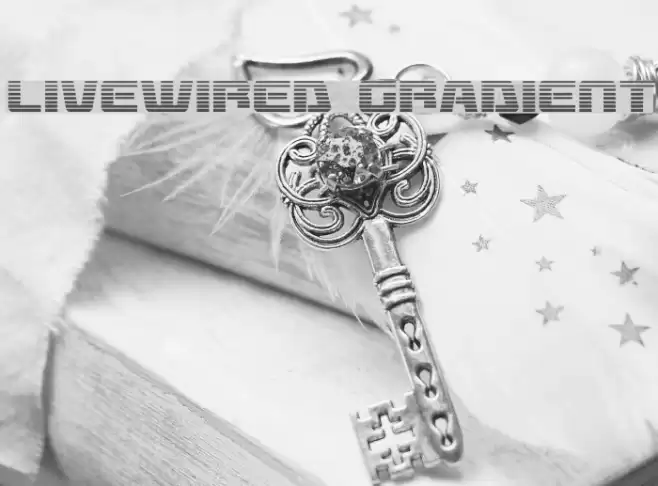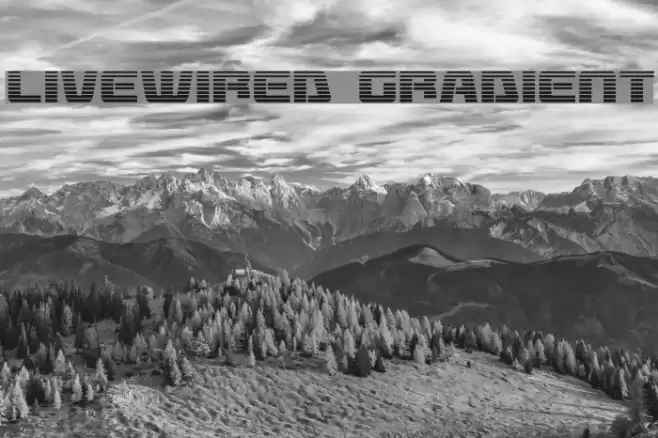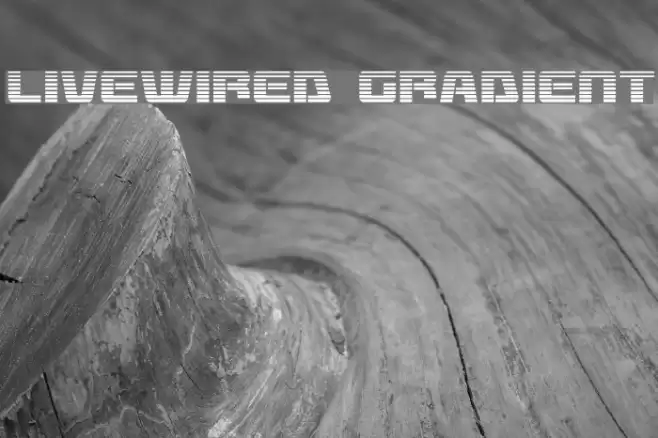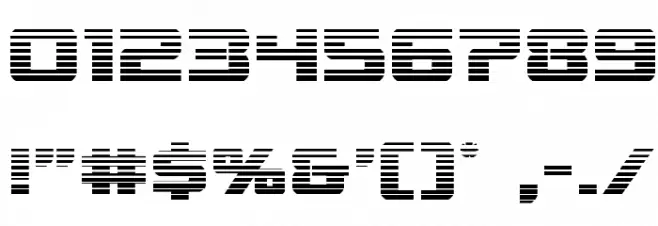
Livewired Gradient Font
Livewired Gradient Description
This font features a futuristic and digital aesthetic, characterized by its unique horizontal line pattern that creates a gradient effect across each character. The design is bold and striking, with a geometric structure that emphasizes a modern, tech-inspired look. The uppercase and lowercase letters maintain a consistent style, while the numerals and special characters complement the overall theme. The font's distinct appearance makes it ideal for projects that require a contemporary and edgy feel.
A futuristic, tech-inspired font with a bold, gradient line pattern from Uncategorized fonts.
- Proposed Projects: Ideal for digital media, tech branding, video game titles, and sci-fi themed designs.